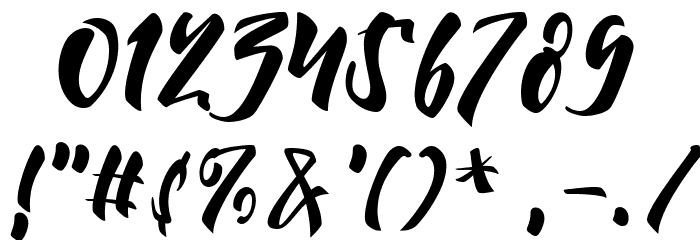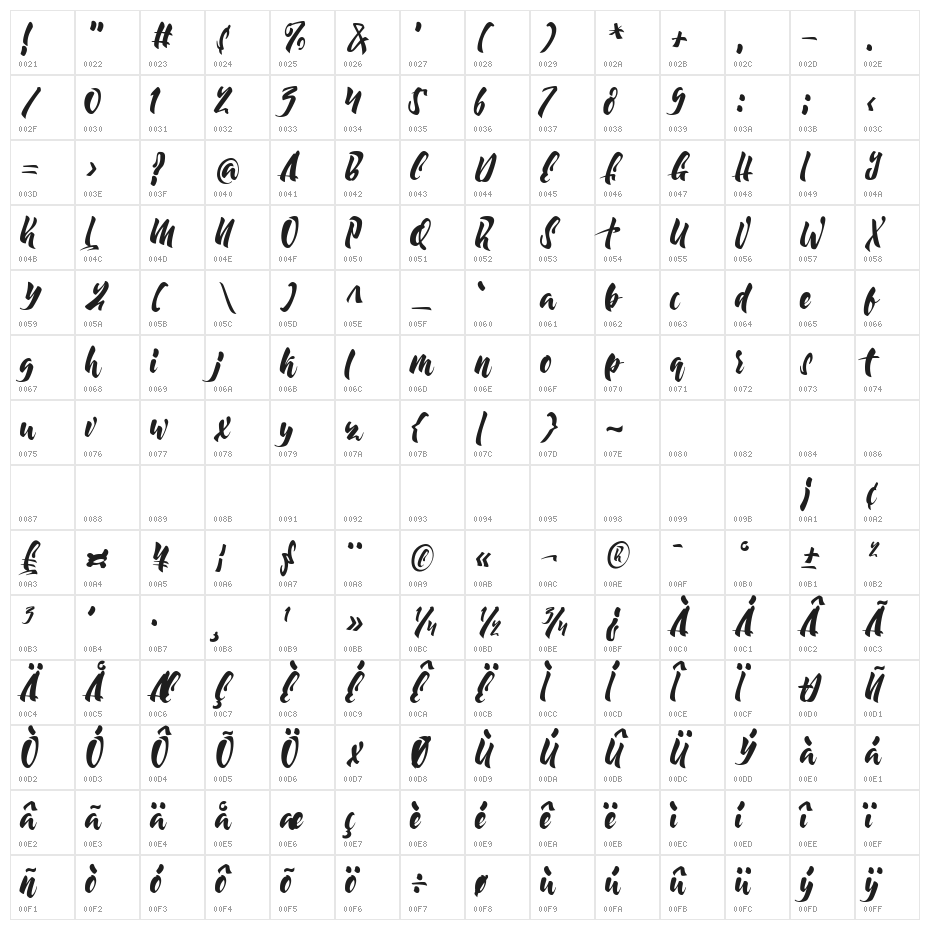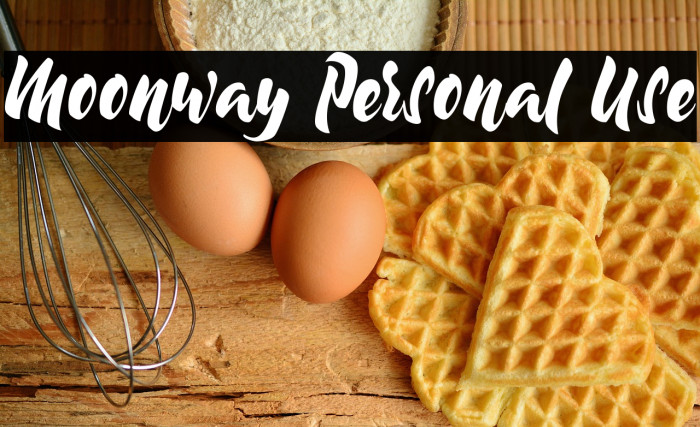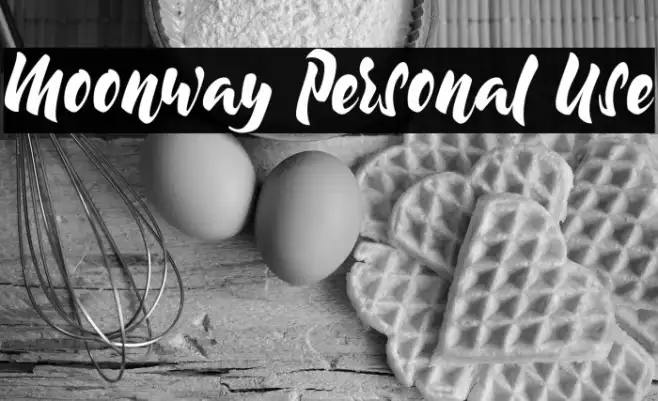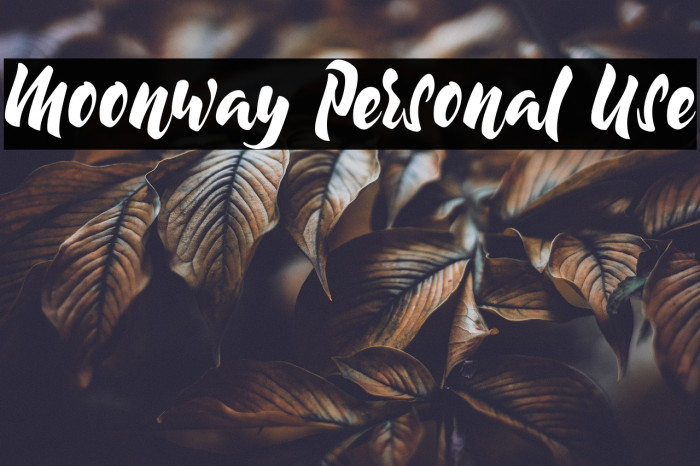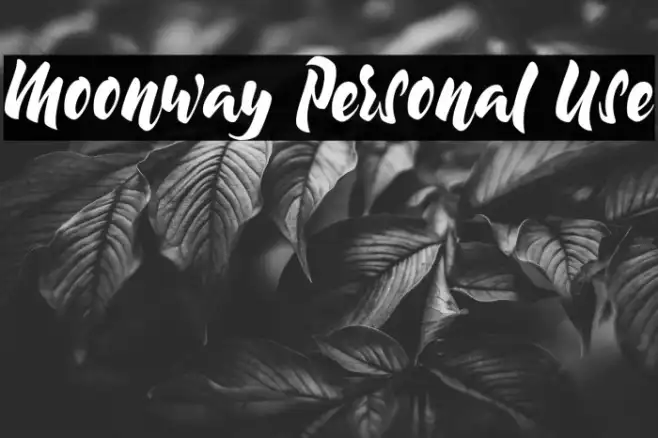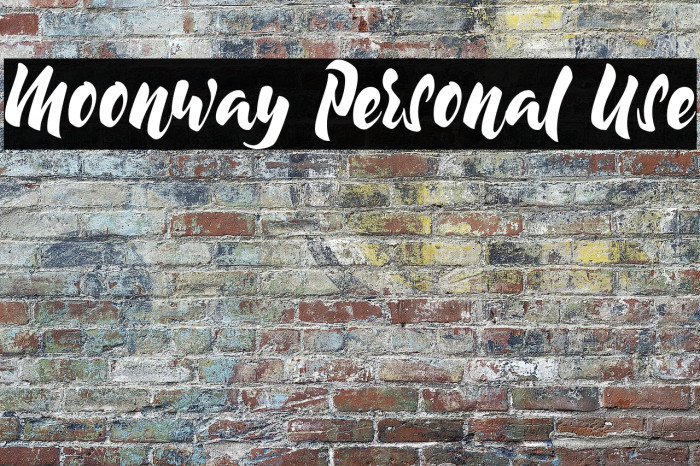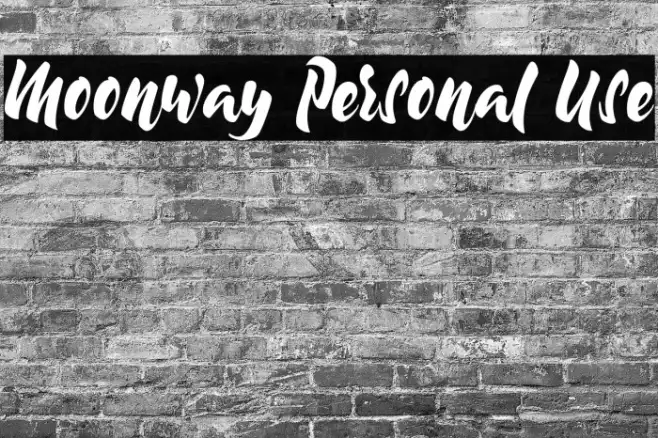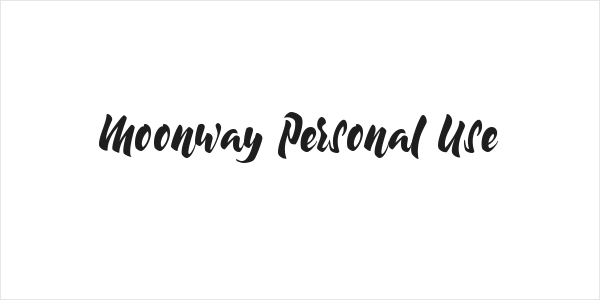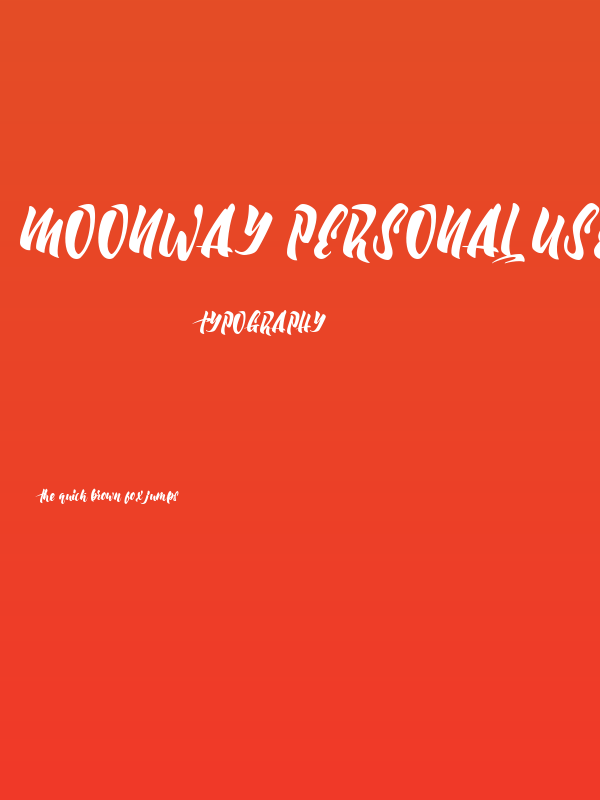
Moonway Personal Use Font
Moonway Personal Use Description
This font features a bold, expressive style with a handwritten appearance. The characters are fluid and dynamic, with a sense of movement and energy. The uppercase letters are tall and slightly slanted, while the lowercase letters maintain a consistent flow, enhancing the script-like quality. The numbers and special characters are crafted with the same artistic flair, making them stand out. This font is ideal for projects that require a personal touch or a creative, artistic vibe.
Use CaseLogos, Headlines, Artistic projects
Proposed ProjectsIdeal for greeting cards, invitations, branding, and artistic posters.